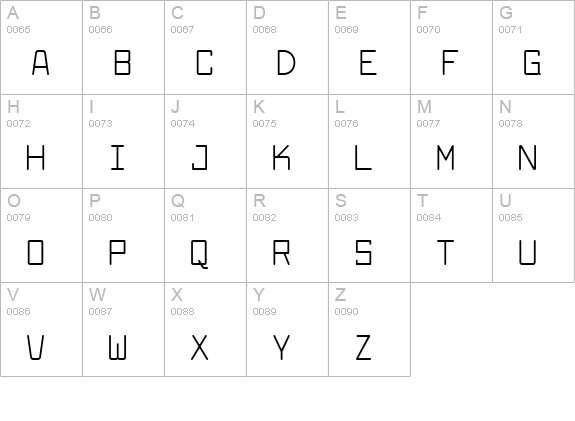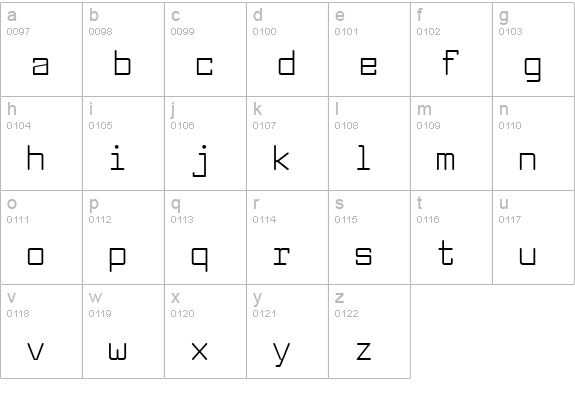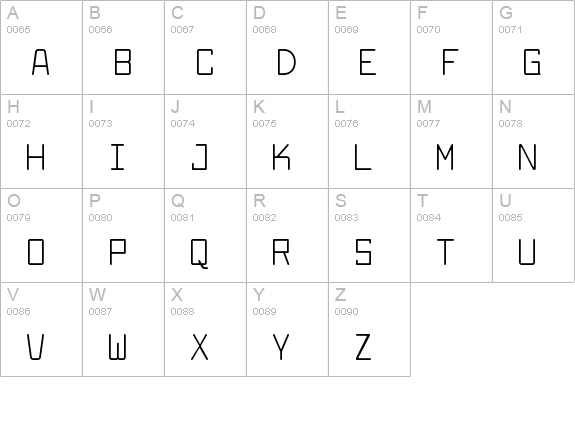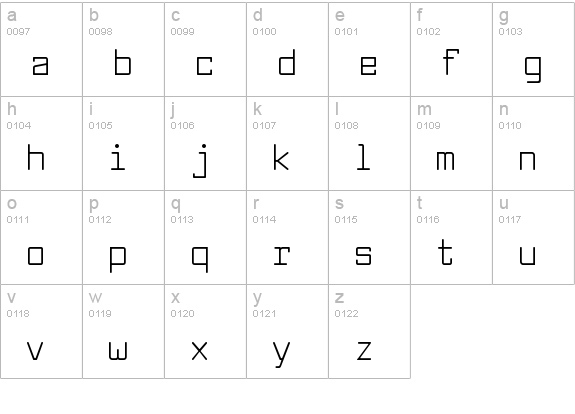
Larabiefont Free Font Details
Larabiefont Free is a beautifully crafted typeface that exudes elegance and sophistication. This versatile font features clean lines and a modern yet classic design that is perfect for a wide range of projects. Whether you are creating a logo, a website, or a printed piece, Larabiefont Free will elevate your design with its timeless appeal. The best part about Larabiefont Free is that it is completely free to download. You can access this stunning font at FontsMarket.com, where you can easily download and start using it in your projects right away. With its sleek and stylish look, Larabiefont Free is sure to make a statement and leave a lasting impression on your audience. Don't miss out on this fantastic opportunity to enhance your designs with this exceptional font.